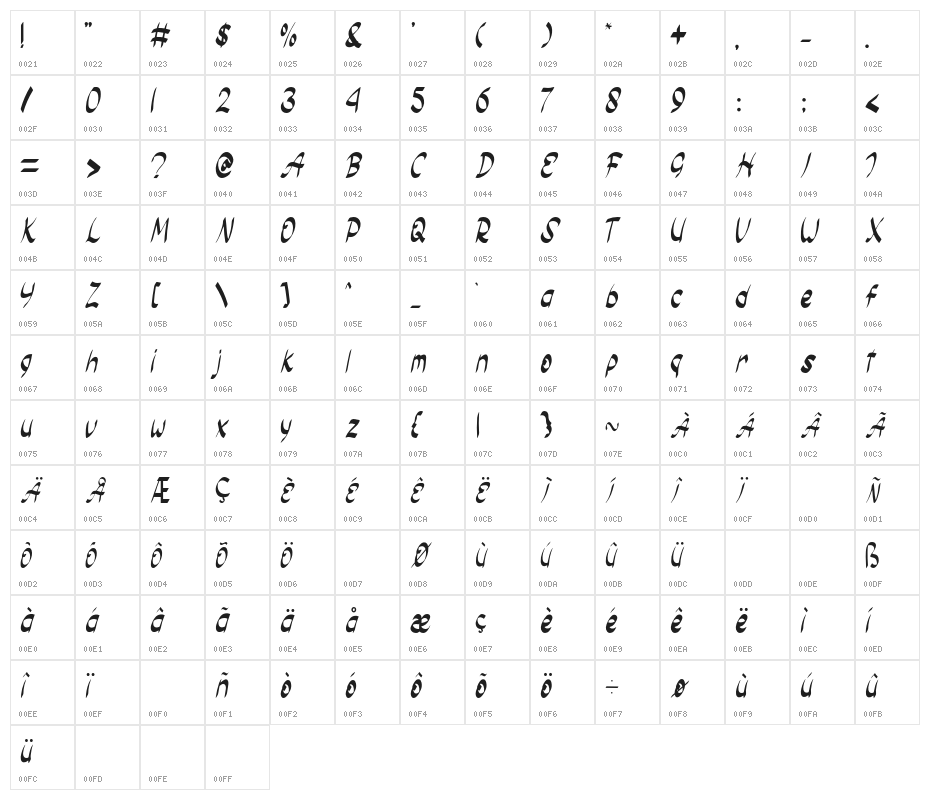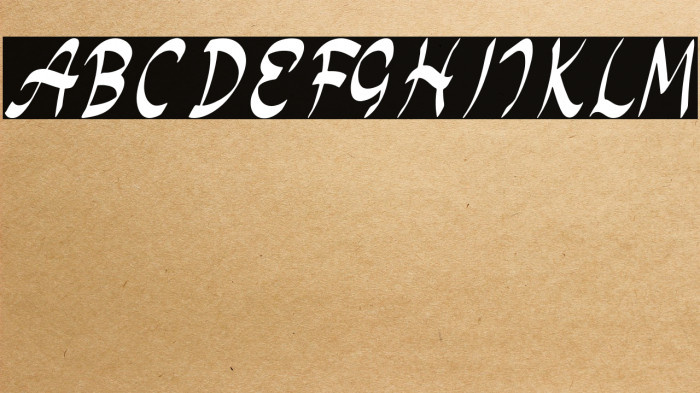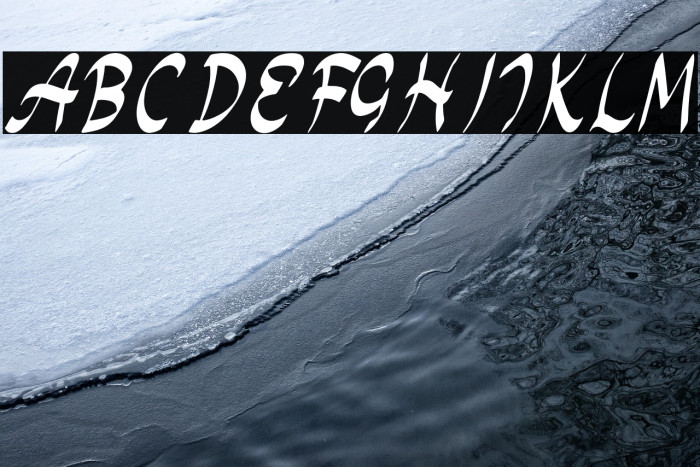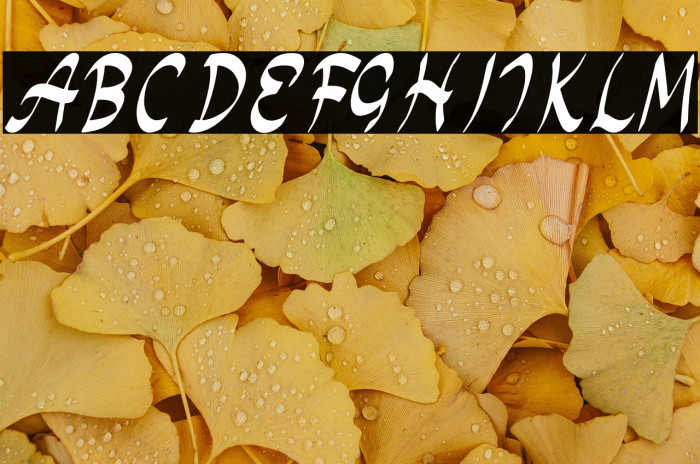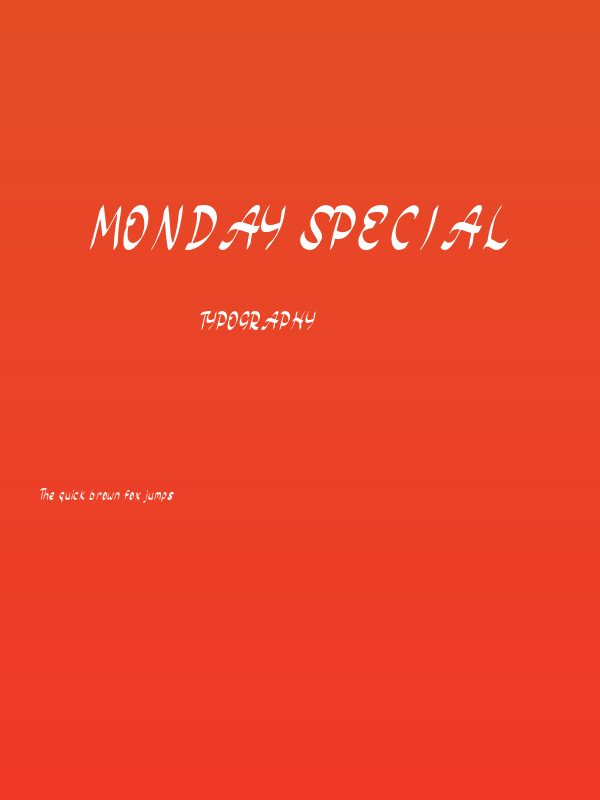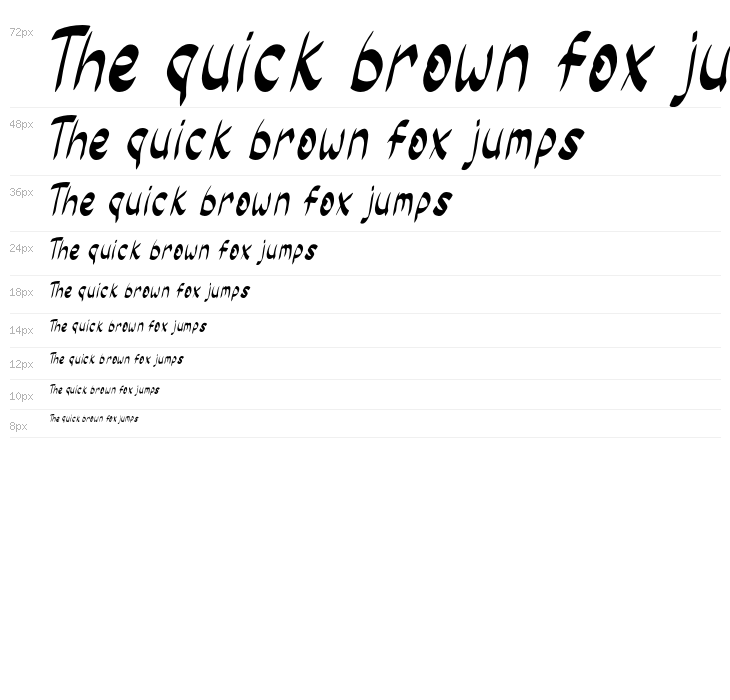
Monday Special Font
Monday Special Description
This font features a dynamic and expressive style, characterized by its fluid, cursive strokes and a sense of movement. The letters have a handwritten quality, with varying thickness that adds a lively and artistic flair. The uppercase letters are bold and prominent, while the lowercase letters maintain a consistent flow, creating a harmonious balance. The numbers and special characters are designed with the same energetic style, making them stand out. This font is perfect for projects that require a personal touch or an artistic vibe.
| Proposed Projects | Ideal for greeting cards, artistic posters, branding projects, and invitations. |